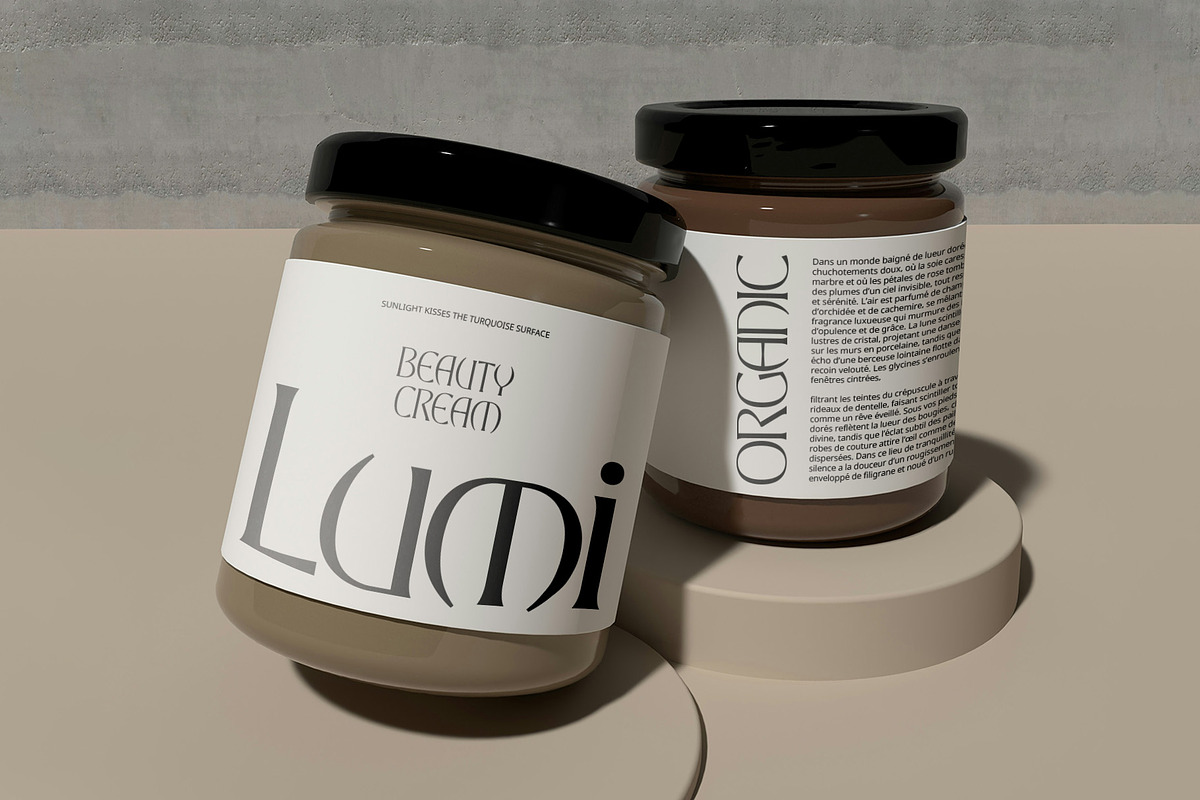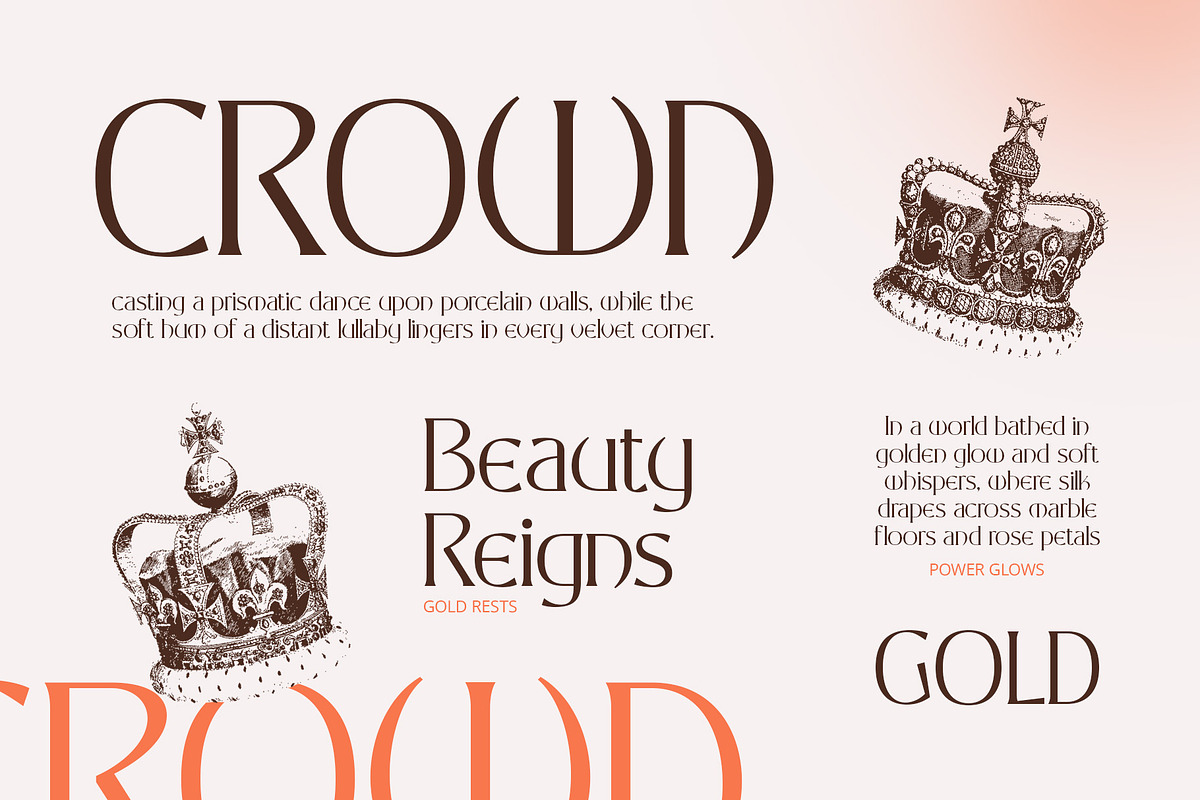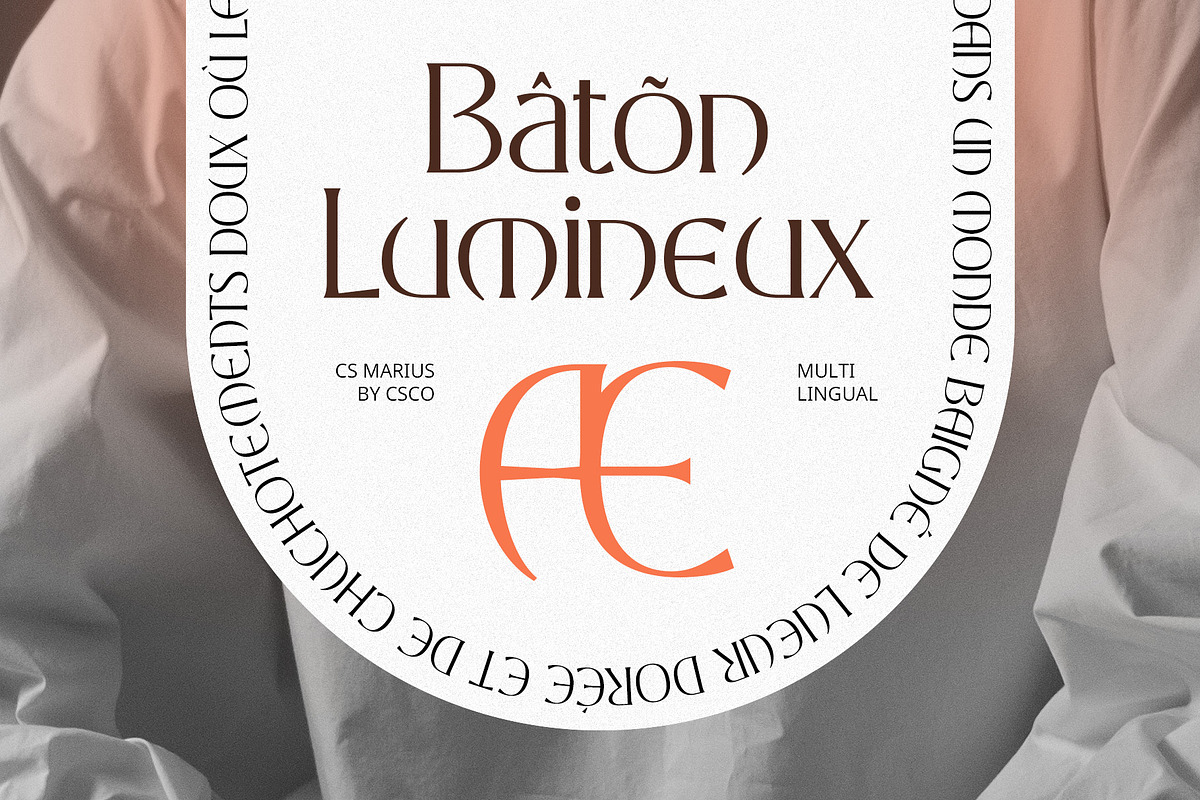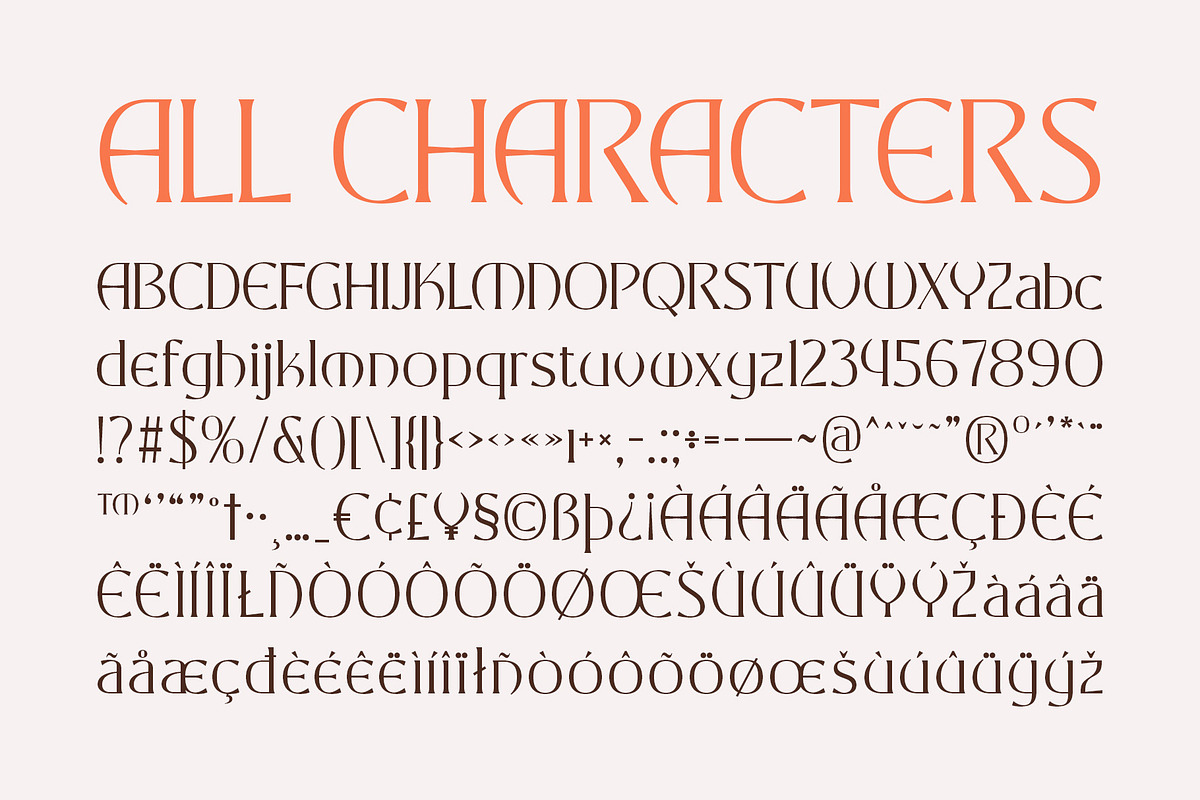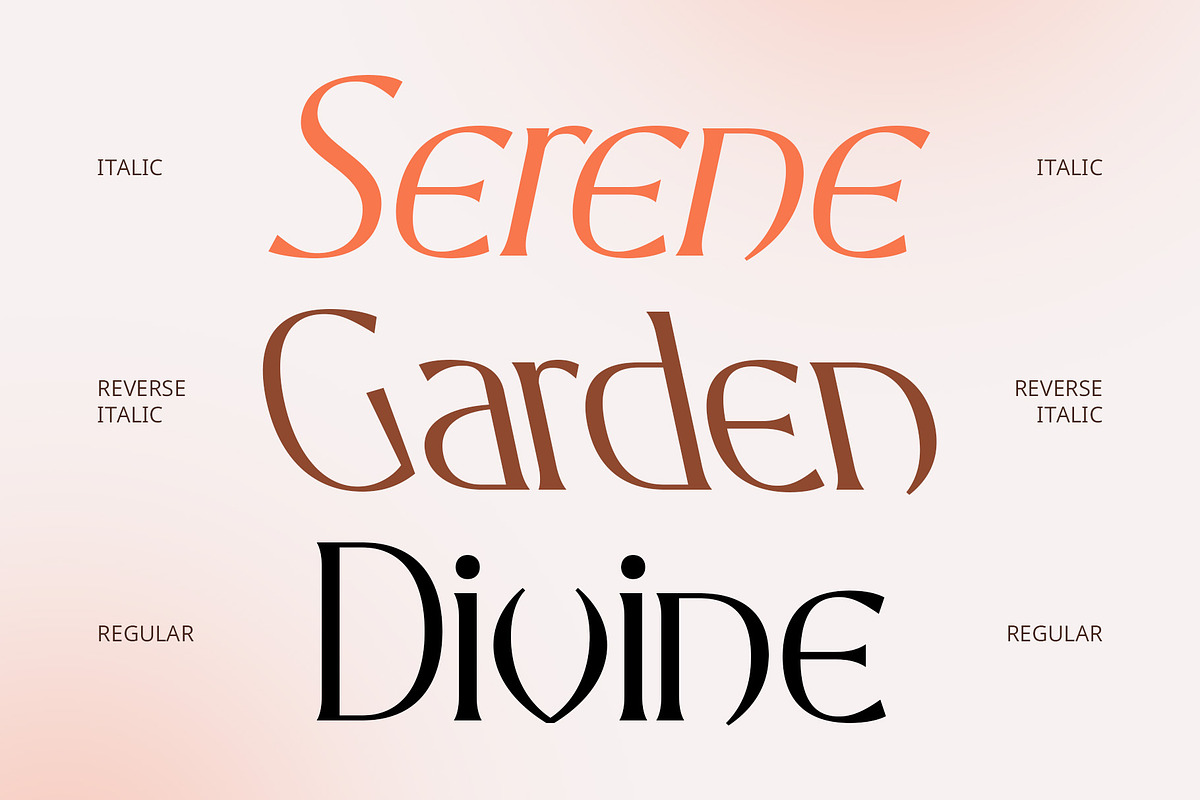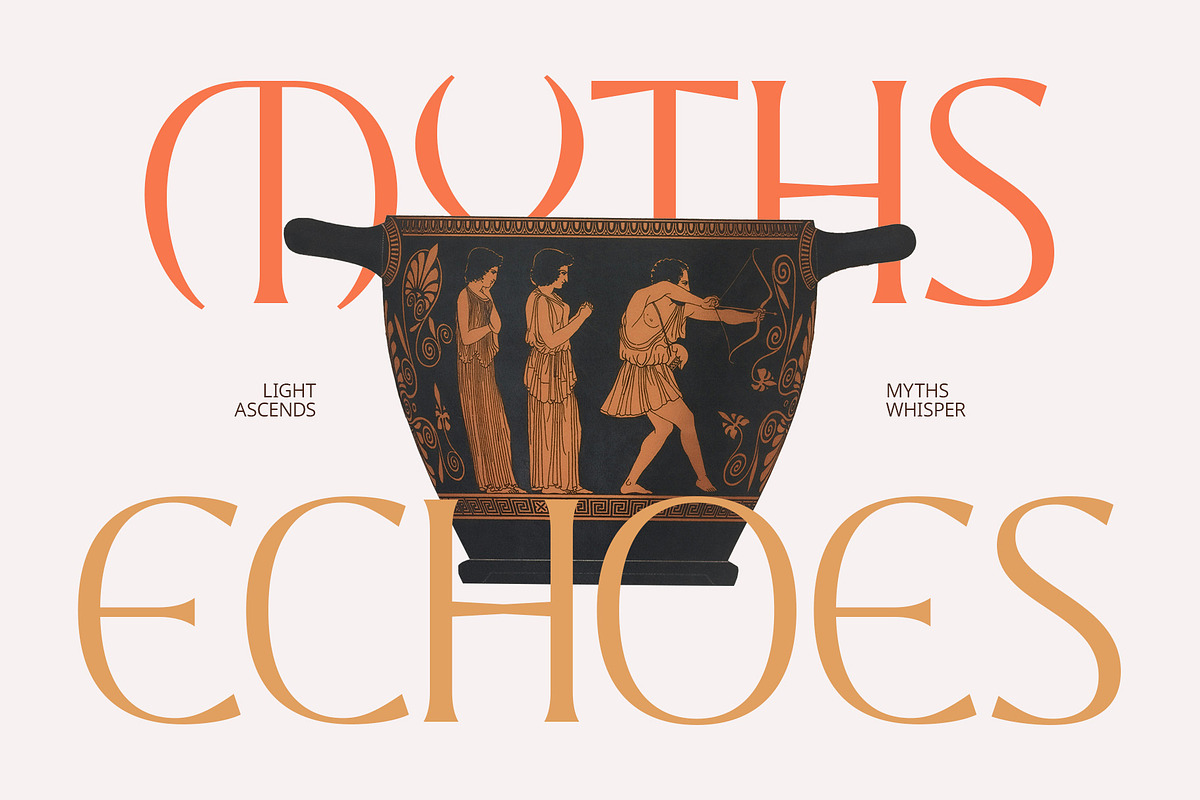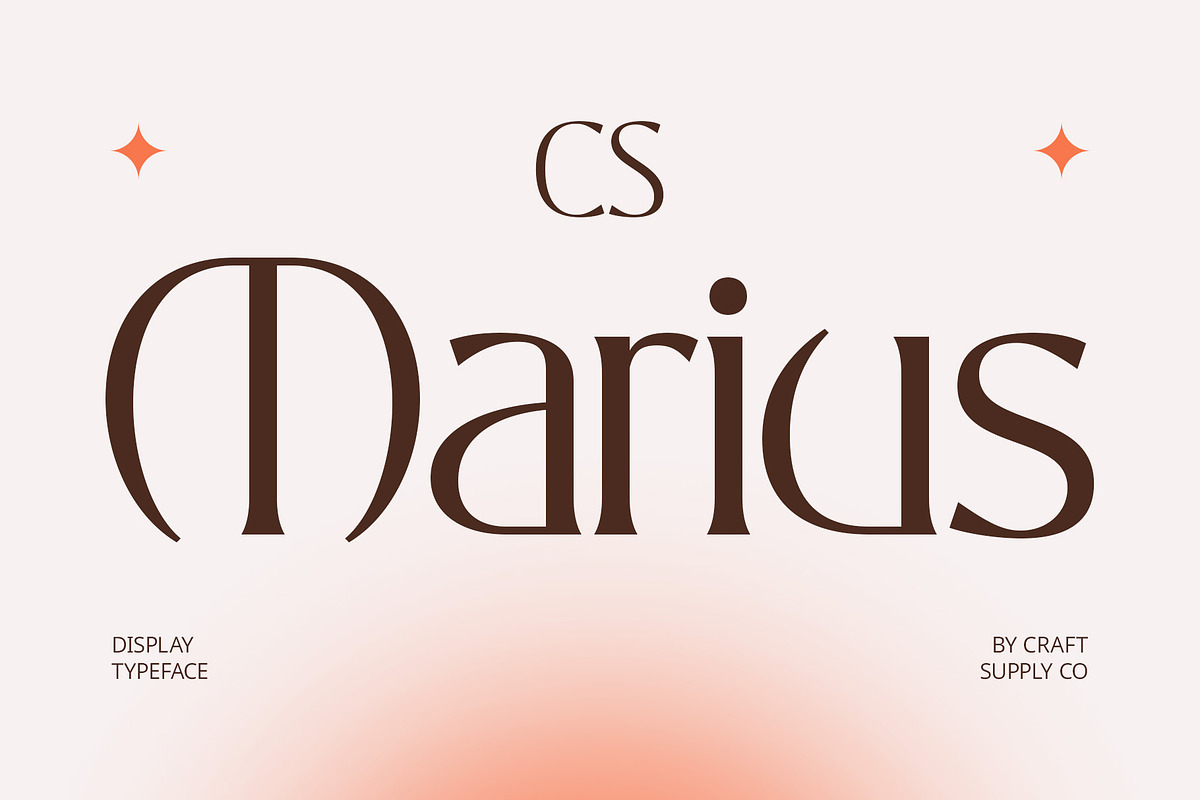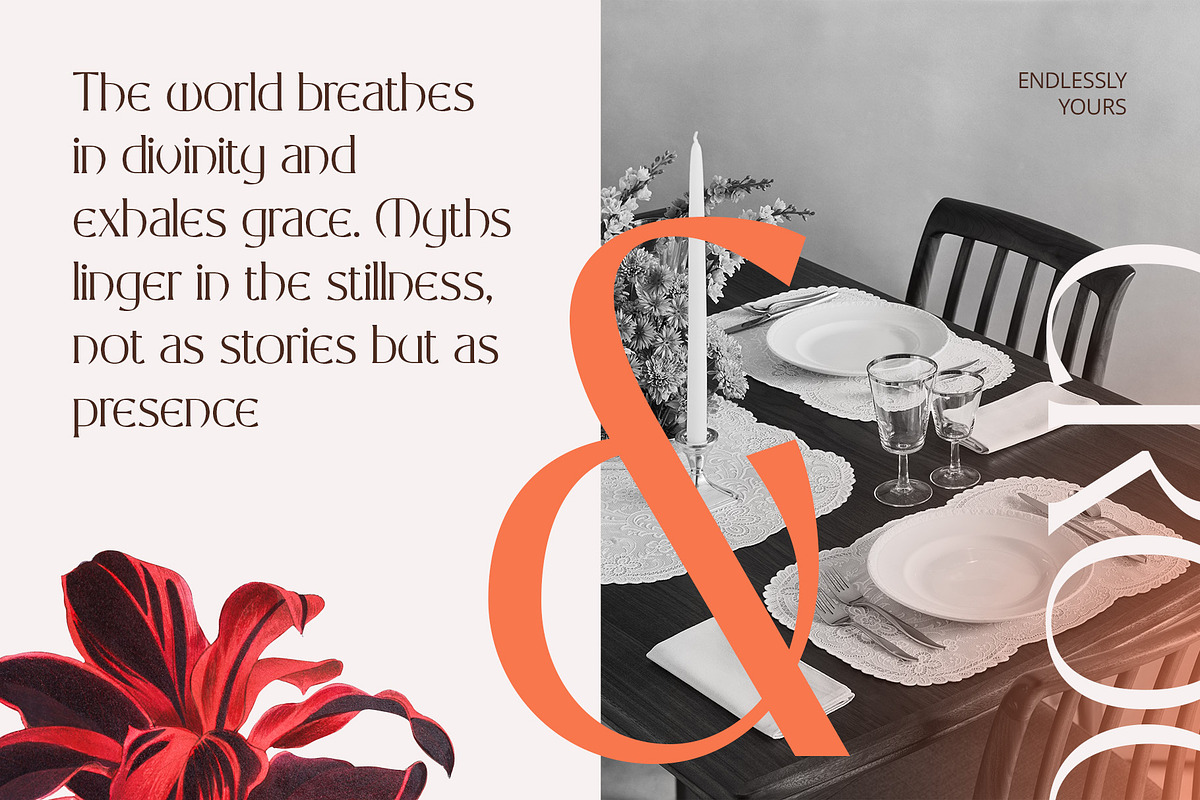
CS Marius – Classic Font
CS Marius – Classic Font: Timeless Elegance with a Greek Influence
Majestic Classical Meets Contemporary Design CS Marius is a modern display serif font that draws inspiration from the elegance of Greek-style lettering. Its bold, commanding presence is infused with classical elements, yet refined with a clean, contemporary touch. The result is a font that feels both regal and relevant, bridging centuries of design heritage.
Architectural Serifs with Proportional Balance The bold, well-proportioned serifs of CS Marius reflect the grandeur of ancient Greek architecture, evoking a sense of stability, authority, and sophistication. Each letterform is carefully crafted to achieve harmony between strength and grace, making it perfect for impactful display use.
Perfect for Classical Luxury Branding Ideal for titles, high-end logos, and premium branding, CS Marius projects an air of prestige and refinement. Its aesthetic blends tradition with modernity, making it a natural choice for projects that aim to convey timeless luxury in a fresh, stylish way. Its classic influence adds depth and personality, while its modern execution ensures it feels fresh and relevant.
Versatility with a Statement Whether applied to editorial headlines, product packaging, or sophisticated identity systems, CS Marius adapts effortlessly. Its precise lines and balanced proportions ensure readability while maintaining a distinctive, commanding presence that leaves a lasting impression.
- CS Marius Regular
- CS Marius Italic
- CS Marius Reverse Italic